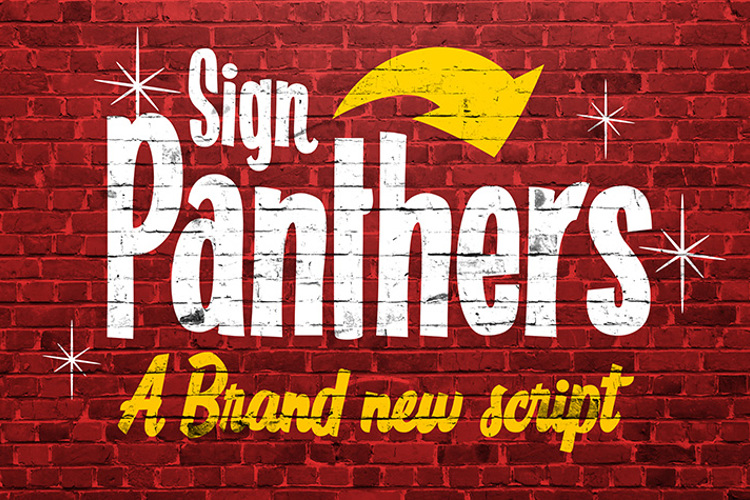
Sign Panthers Script Font
About Sign Panthers Script Font
More info from Konstantine Studio
Well its not a band name, let me introduce you The Sign Panthers, a double fonts with implementations from sign painting style which are very hype in that era (you name it, as long as its old, its all good). When you need something bold, strong, classic, and punch you in your face, they're never get any wrong with that.